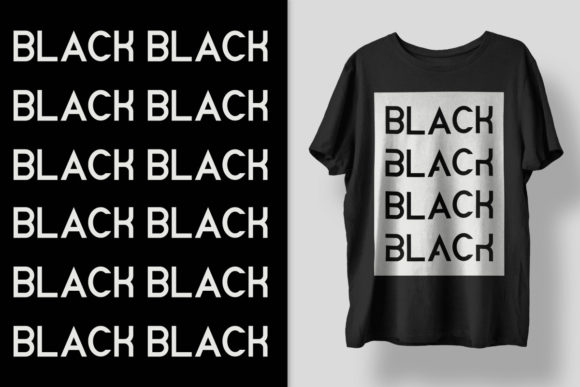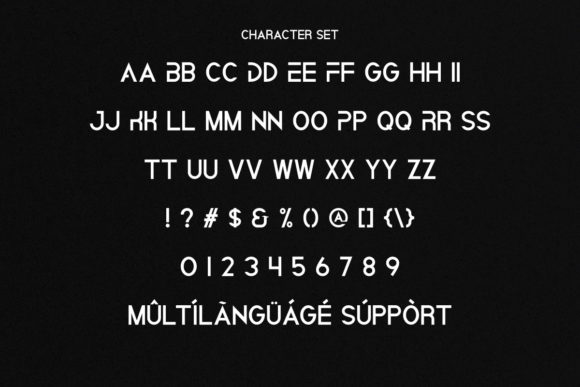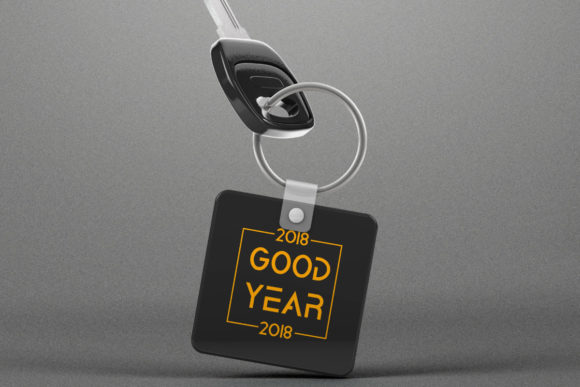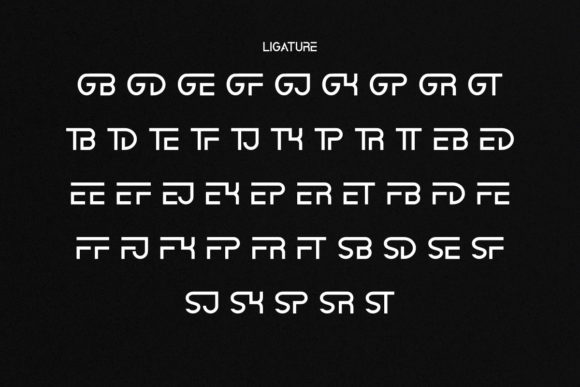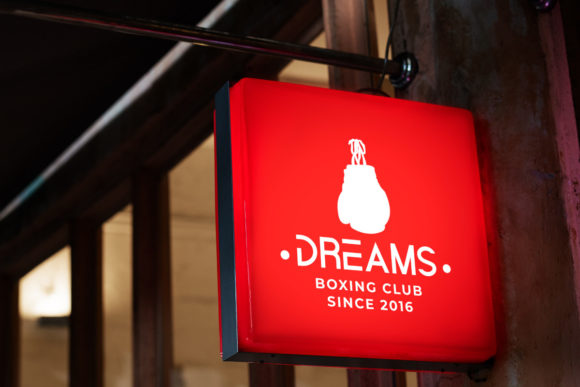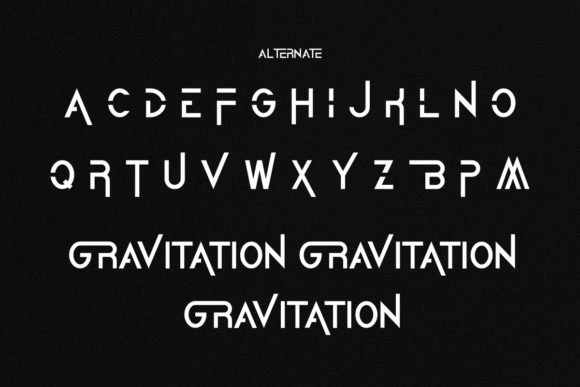
Introduction to Gravitation Font
Have you ever been stuck on a creative project, staring at a blank canvas or screen, waiting for the perfect font to bring your vision to life? I know I have. The struggle is real, but it’s about to become a thing of the past with the introduction of the Gravitation Font.
This modern sans serif font is not just any font – it’s a game-changer. With its strong characters and sleek design, it’s perfect for adding a special effect to any project, from games and technology to events and logos. The Gravitation Font is also PUA encoded, making it easy to access all of the glyphs and swashes you need to take your design to the next level.
Key Features of Gravitation Font
- High-quality design resource for creative projects, offering a unique and futuristic aesthetic.
- Features a transparent background, allowing for seamless integration with any design or background.
- Designed with precision and attention to detail, resulting in a crisp and clear font with high resolution (up to 1024×1024 pixels).
- Includes a comprehensive set of characters, including uppercase and lowercase letters, numbers, and punctuation marks.
- Perfect for designers and artists working on futuristic, sci-fi, or space-themed projects, adding a touch of otherworldliness to any creative project.
Honest Review: Gravitation Font
I recently stumbled upon the Gravitation Font, and I must say it’s a fascinating design resource. As a designer, I’m always on the lookout for high-quality fonts that can elevate my creative projects.
- ✨ The Gravitation Font offers a transparent background, making it perfect for projects that require a clean and minimalist aesthetic.
- ✨ The font is highly customizable, allowing me to adjust the size, color, and style to suit my design needs.
- ⚠️ Some users may find the font’s unique style challenging to read, particularly at smaller font sizes.
Overall, I’m impressed with the Gravitation Font’s potential to add a touch of creativity to my designs. While it may have some limitations, I believe it’s a valuable design resource worth exploring.
Gravitation Font is ideal for creative projects such as logo design, branding, and digital art. Its unique style and high-quality design make it a valuable design resource for any project. Some common use cases include:
- Branding
- Digital art